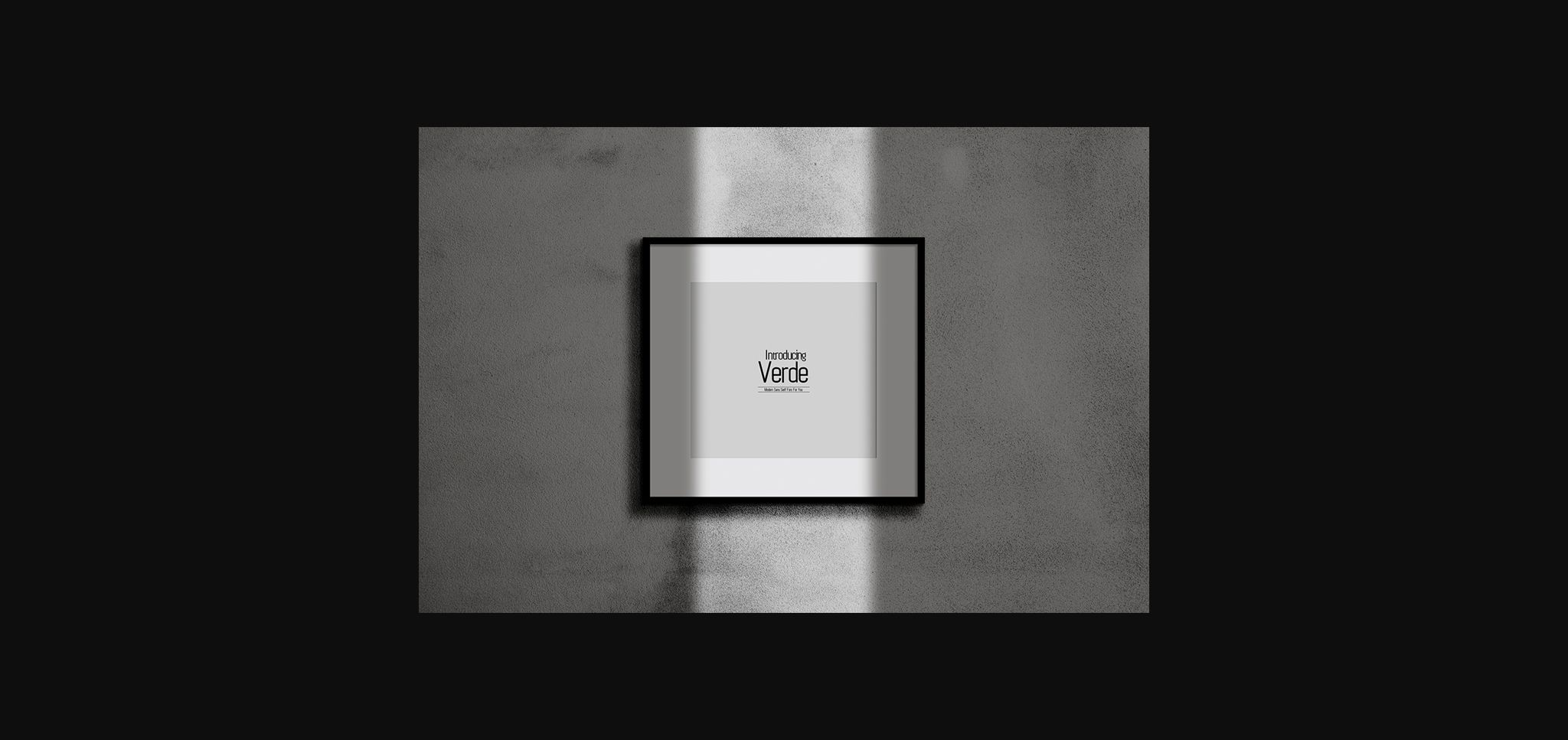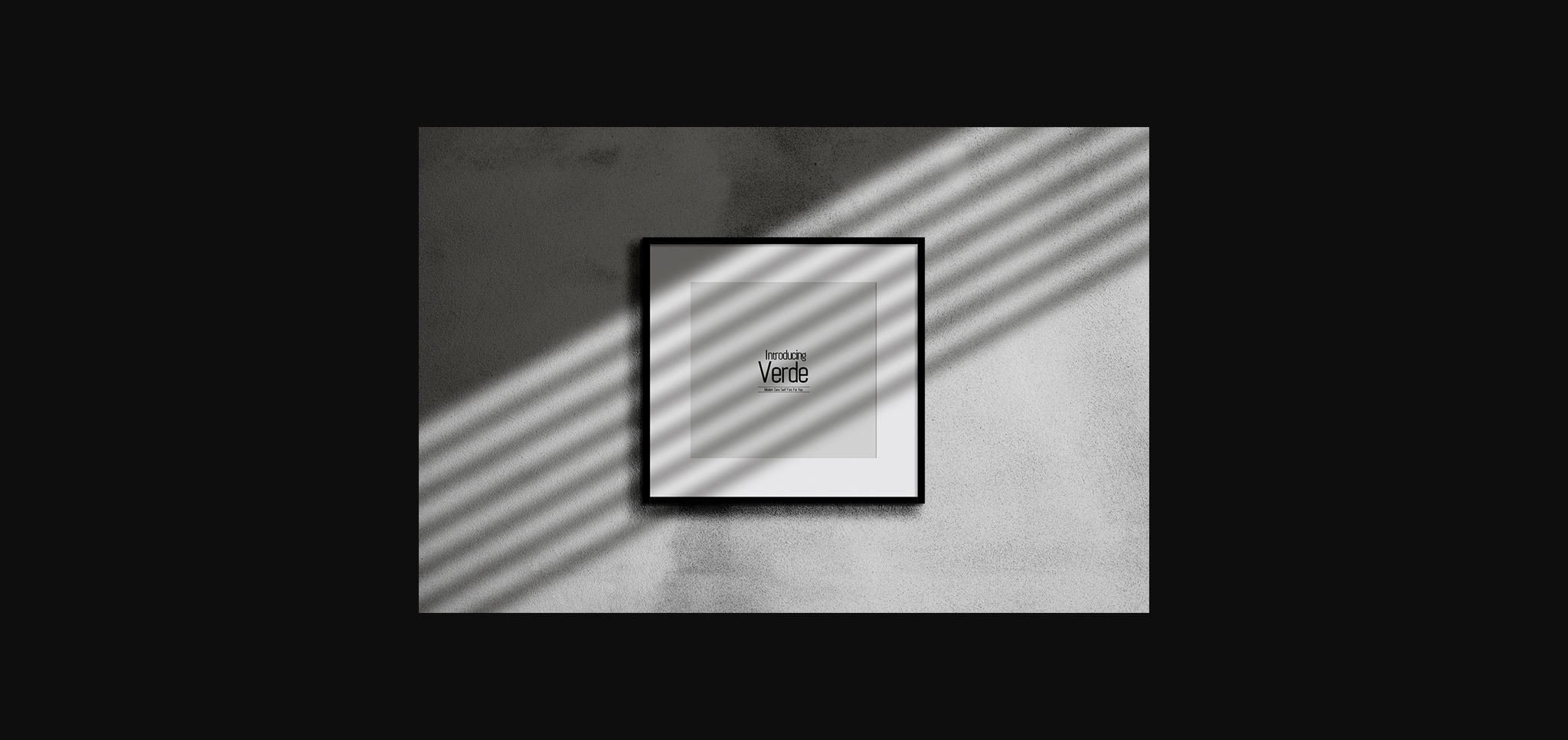
About Verde Font
Verde is a cute and casual sans serif font with an incredibly modern feel. Whether you’re looking for fonts for Instagram or calligraphy scripts for DIY projects, this font will turn any creative idea into a true piece of art!